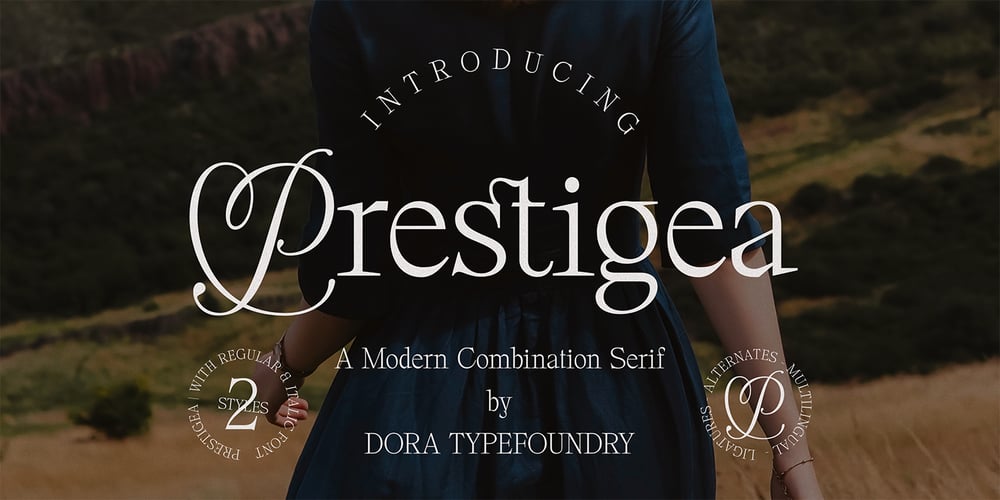
Prestigea
Prestigea font
Prestigea Font Family was designed by Zahratul Laila and published by Dora Typefoundry. Prestigea contains 2 styles and family package options. Prestigea is a simple and clean serif display font added with some elegant & nostalgic script letters. This type of font is equipped with more than 50 ligatures and 51 alternative glyphs. It is very suitable for your various needs such as branding projects, logos, wedding designs, social media posts, advertisements, product packaging, product designs, labels, photography, watermarks, invitations, stationery. , and any project,Features: All Caps Font with different uppercase and lowercase Numbers & Symbols Supported Languages Alternates and Ligatures PUA Encoded We highly recommend using a program that supports OpenType features and Glyphs panels like Adobe apps and Corel Draw, so you can see and access all Glyph variations.This type of family has become the work of true love, making it as easy and fun as possible. I really hope you enjoy it!Thank you Enjoy the font and go get creative 🙂